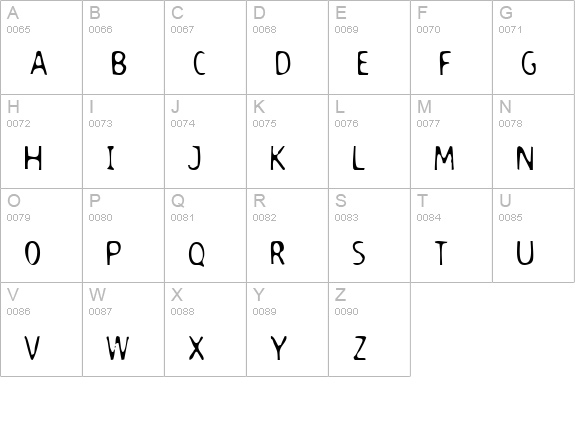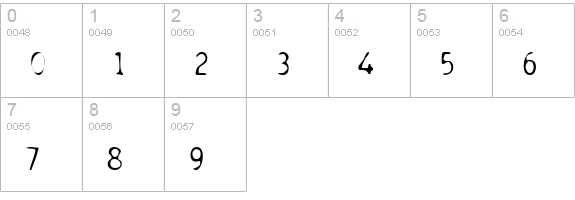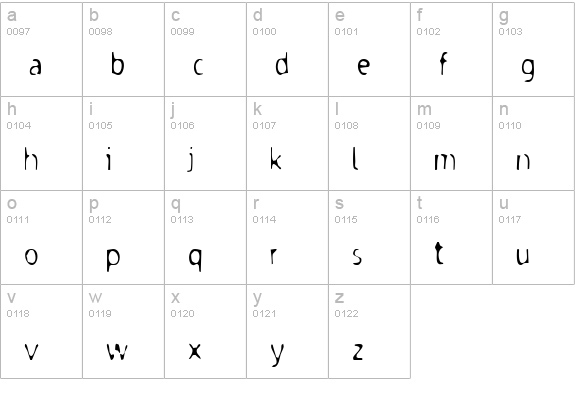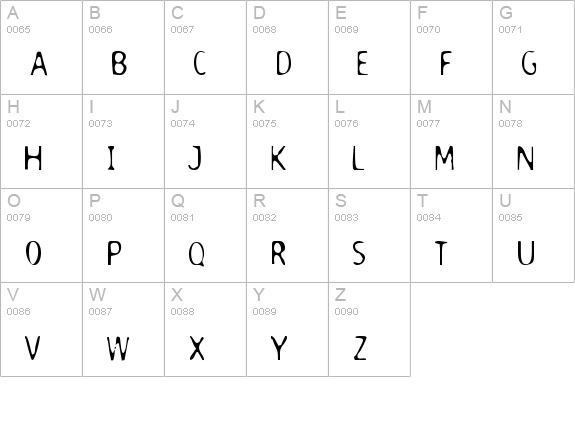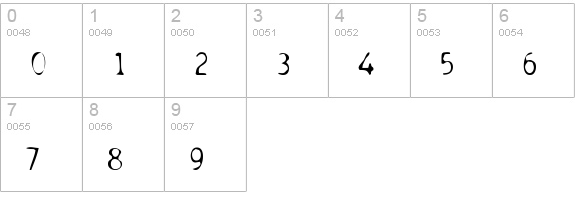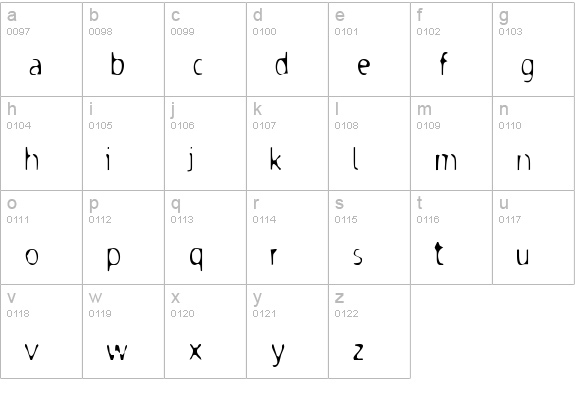
DodgenburnA Font Details
DodgenburnA is a versatile and modern font that exudes elegance and sophistication. With its sleek lines and stylish curves, this font is perfect for a wide range of design projects, from logos to branding to print materials. The clean and contemporary look of DodgenburnA makes it a great choice for both digital and print applications. What sets DodgenburnA apart is its unique blend of classic and modern design elements, making it a truly timeless font that will never go out of style. Whether you're working on a corporate identity or a personal project, DodgenburnA is sure to make a lasting impression. Best of all, DodgenburnA is available for free download at FontsMarket.com. So why wait? Add this stunning font to your collection today and take your designs to the next level!